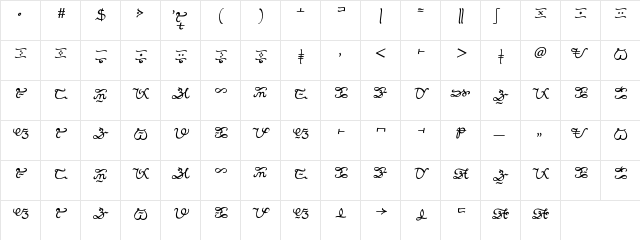
Maalong Tagalog 2 Brush Script Regular
Design Context for Maalong Tagalog 2 Brush Script Typeface
Maalong Tagalog 2 Brush Script flows with the natural rhythm of handwritten lettering, making it ideal for designs that call for warmth and personal expression.
Font Pairing: Combine Maalong Tagalog 2 Brush Script with a simple geometric sans for maximum contrast — the tension between flowing curves and clean structure is a classic typographic pairing.
Pro Tip: Use Maalong Tagalog 2 Brush Script for short runs of text — names, titles, or taglines. Extended body copy in script faces tires the eye quickly.